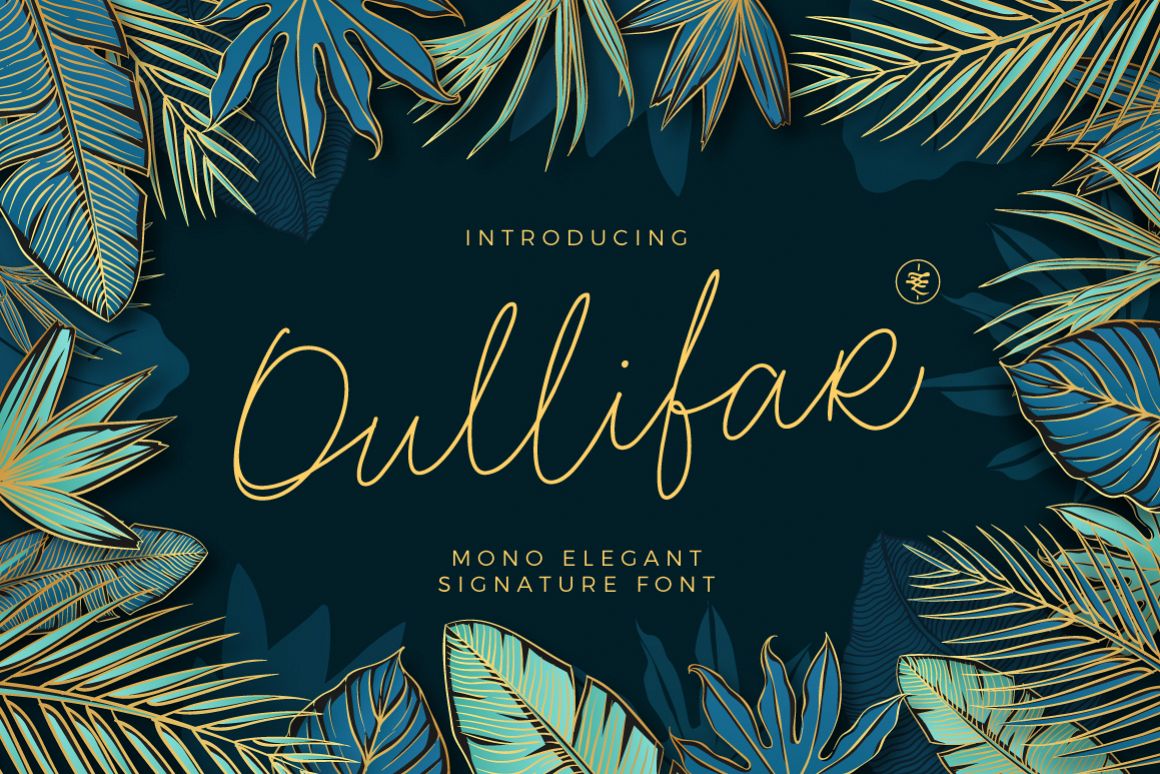
Oullifar Monoline Script
Oullifar Script
Oullifar is a mono elegant signature script. Signature style with smooth flowing, perfect for designing blog logo, website logo, print ads, book covers, film covers, apparel, cards, logos, posters, etc.
Opentype features gives you more alternatives in designing.